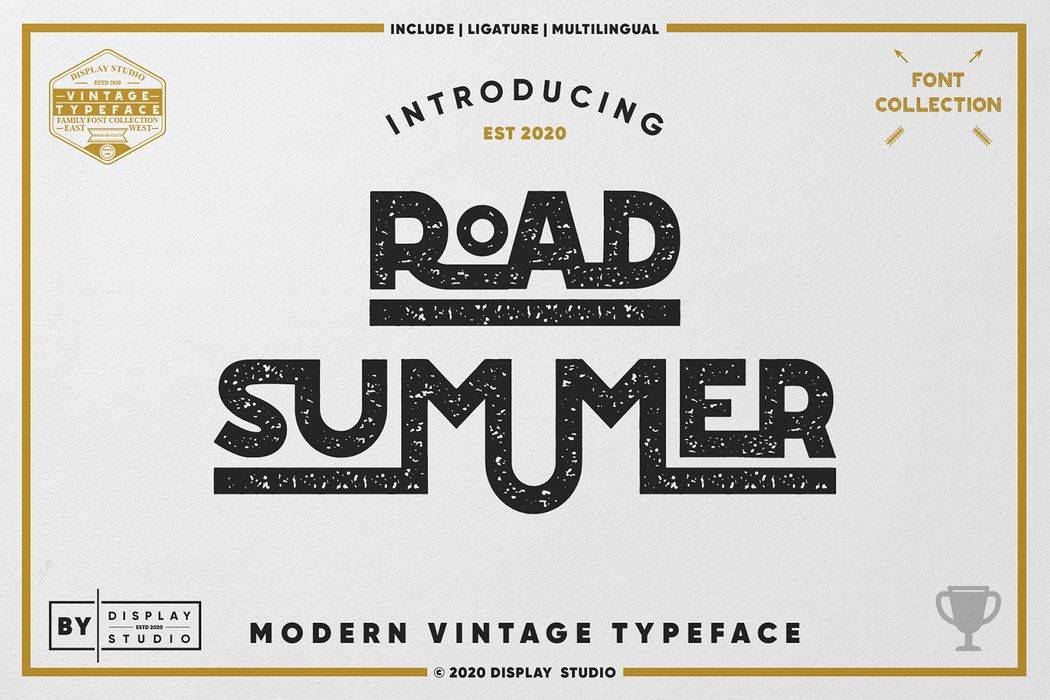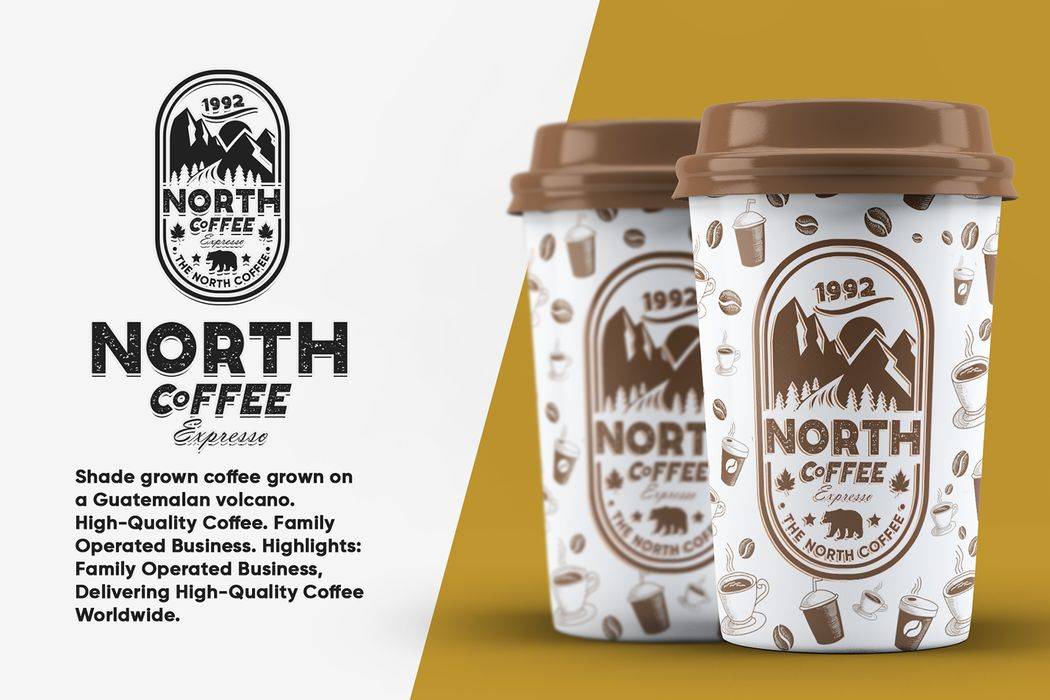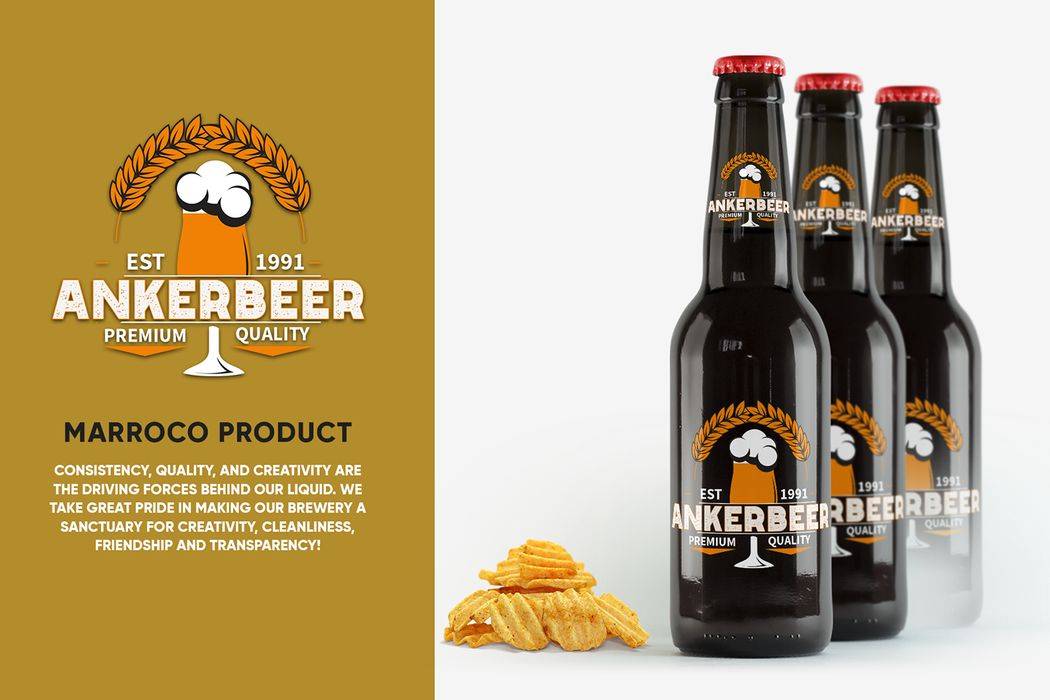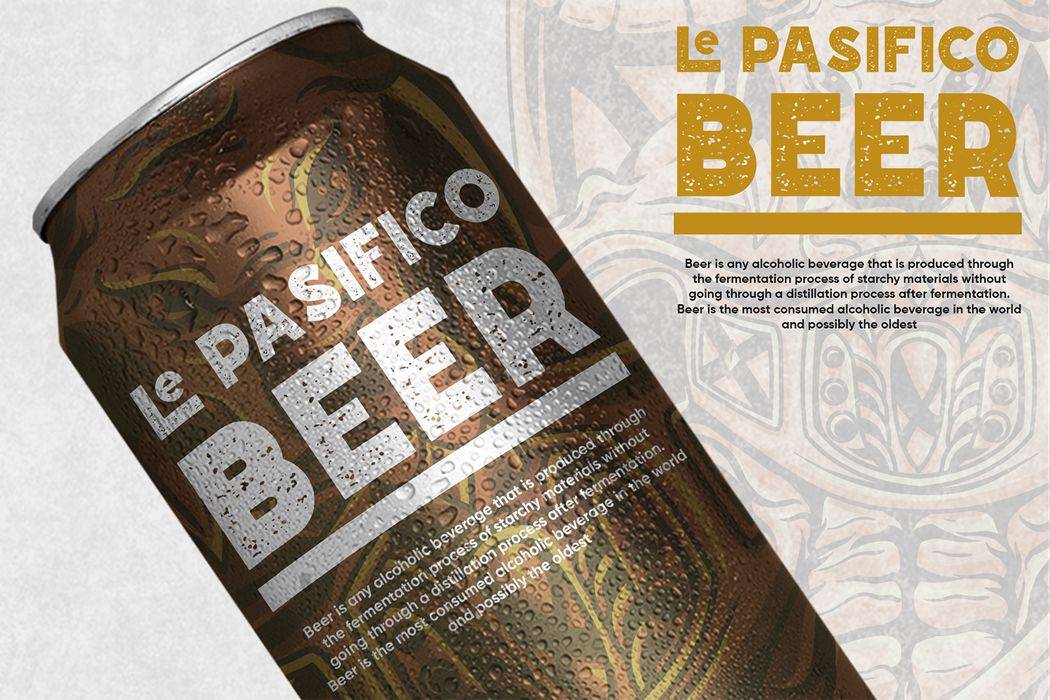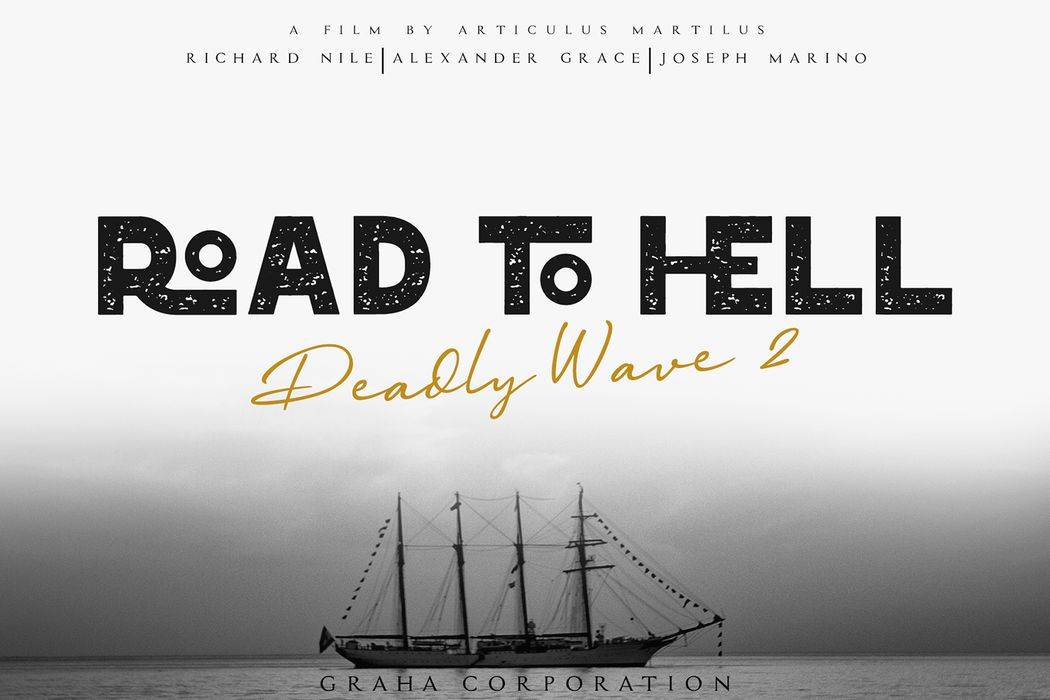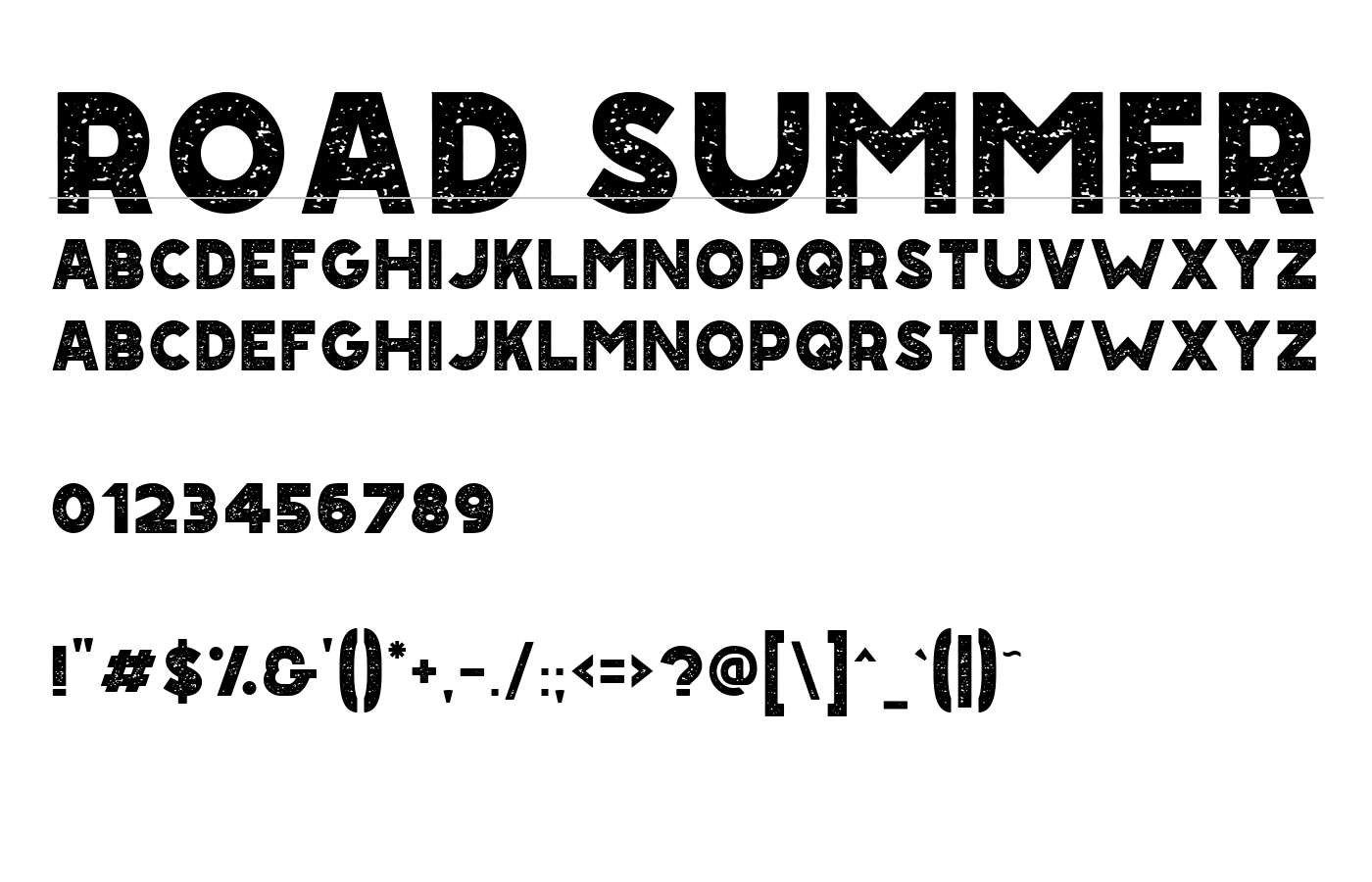
Road Summer is a bold, all-caps sans serif font with a textured, distressed look that gives it a rugged, vintage feel. Its strong, wide letterforms and rough surface make it perfect for eye-catching headlines, logos, and designs that seek a casual, adventurous, or retro vibe. This font works well in outdoor branding, posters, and packaging where a bold statement with character is needed.
Road Summer Font
About Road Summer Font
| Font family | Road Summer Font |